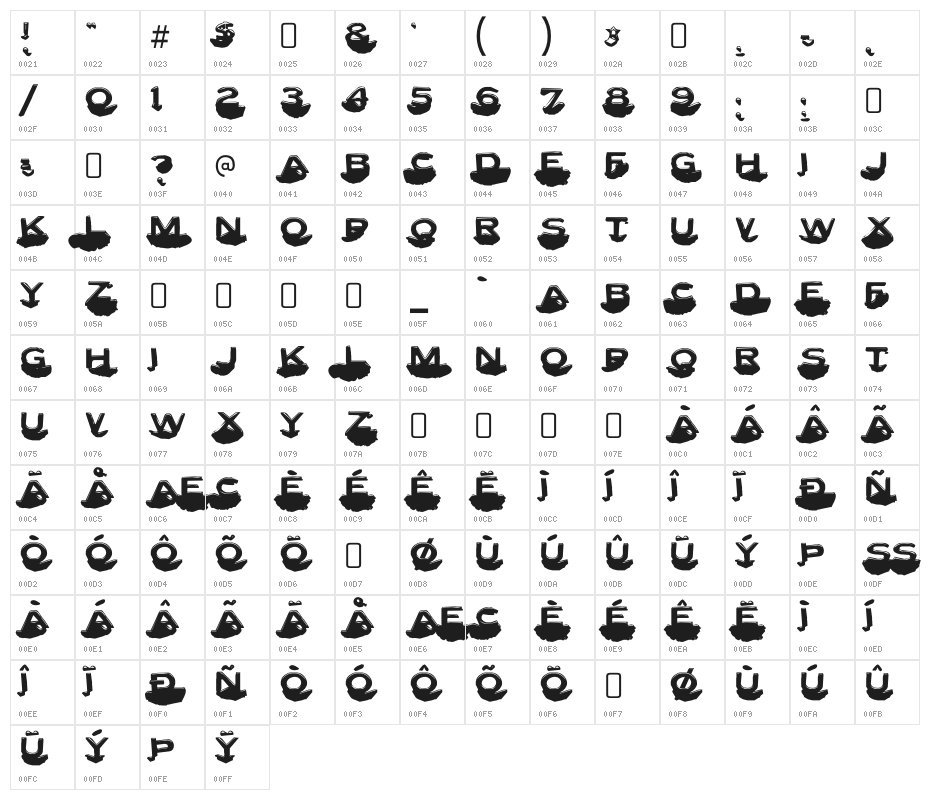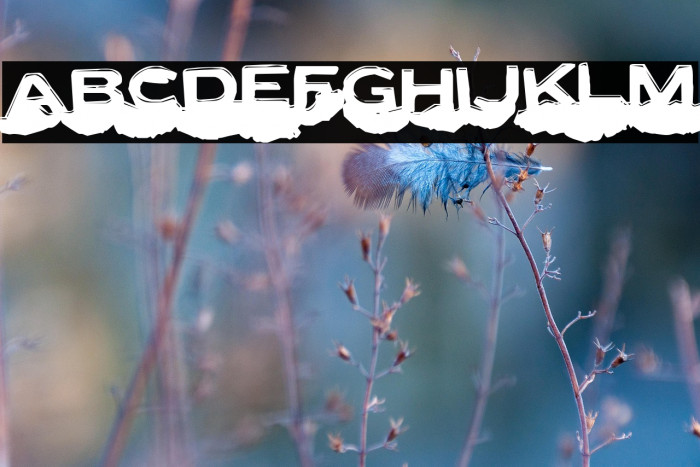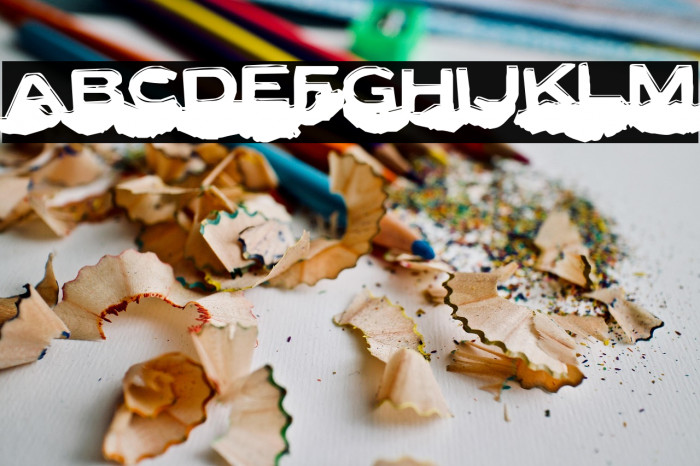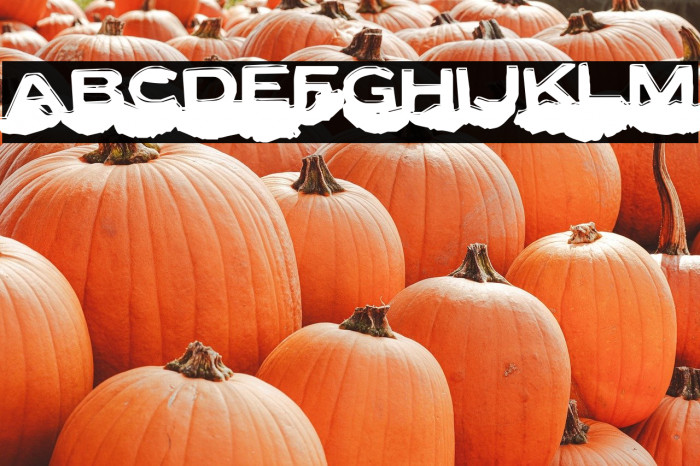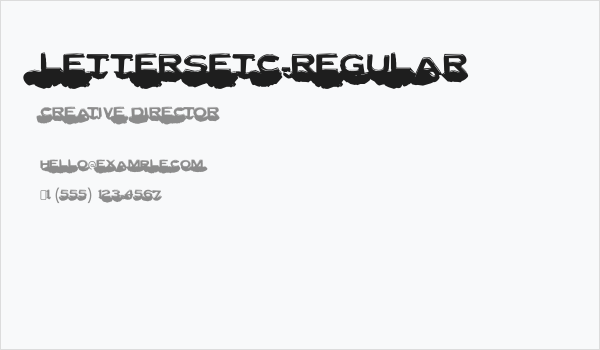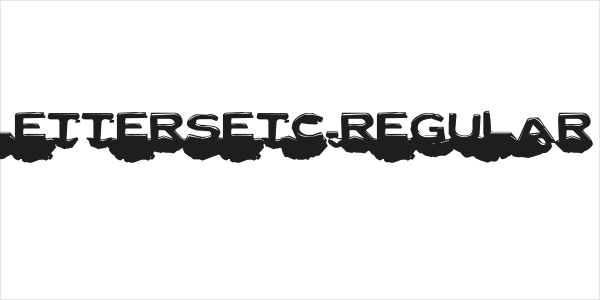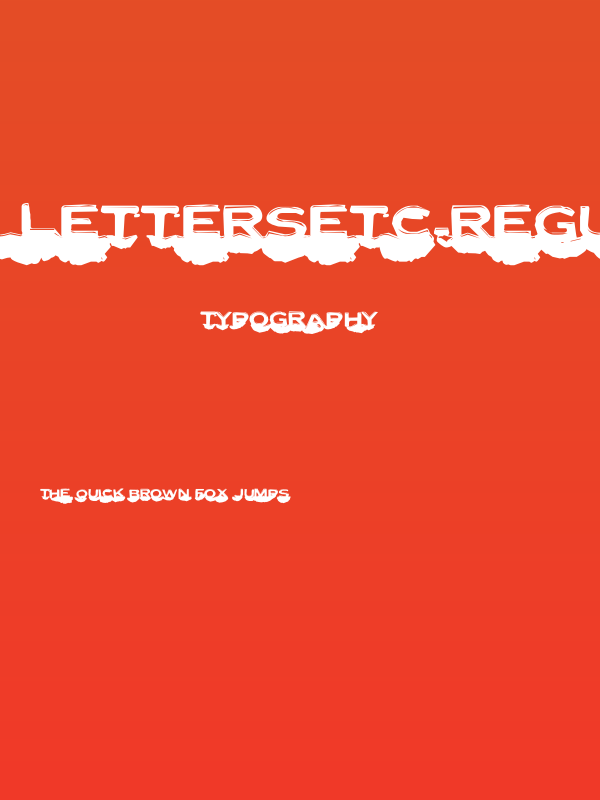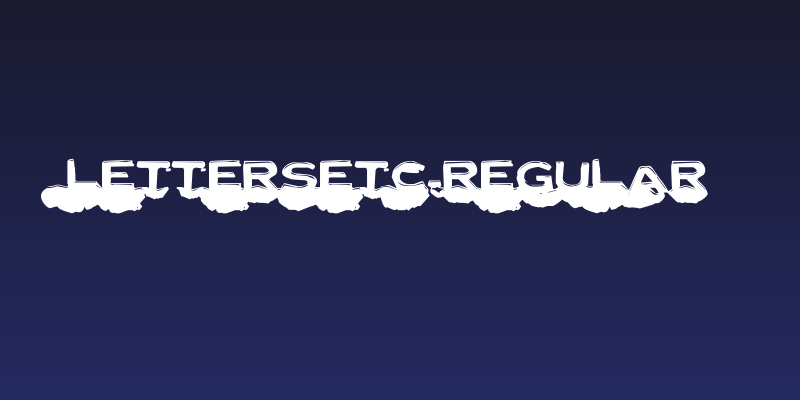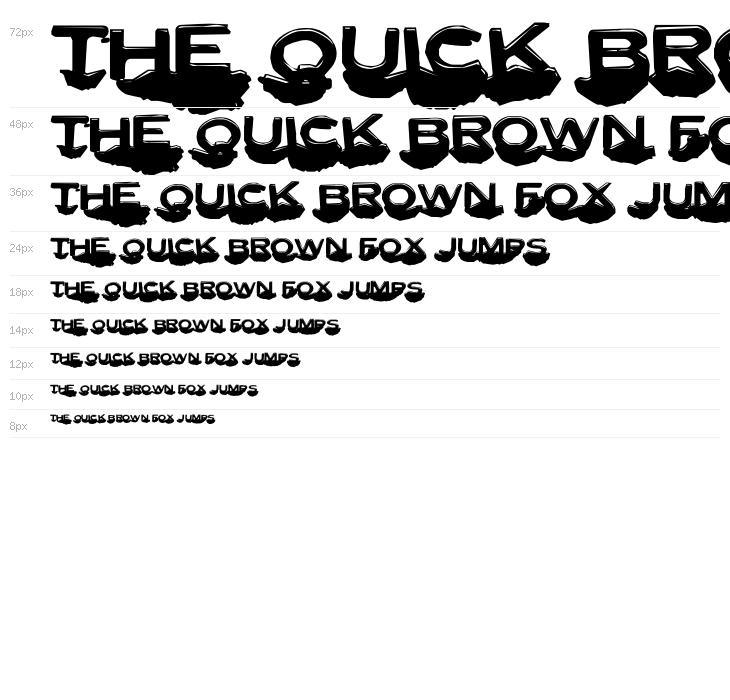
LetterSetC-Regular Font
LetterSetC-Regular Description
This font features a bold and dynamic 3D shadow effect, creating a striking visual impact. The characters are uppercase and have a strong, geometric structure with sharp edges and clean lines. The shadowing adds depth and dimension, making the letters appear as if they are floating above the surface. This style is particularly eye-catching and suitable for designs that require a bold statement. The font maintains a consistent weight throughout, ensuring readability despite its decorative elements. The spacing between characters is normal, allowing for clear legibility while maintaining its dramatic appearance.
| Proposed Projects | Ideal for posters, headlines, logos, and any design needing a bold, attention-grabbing typeface. |